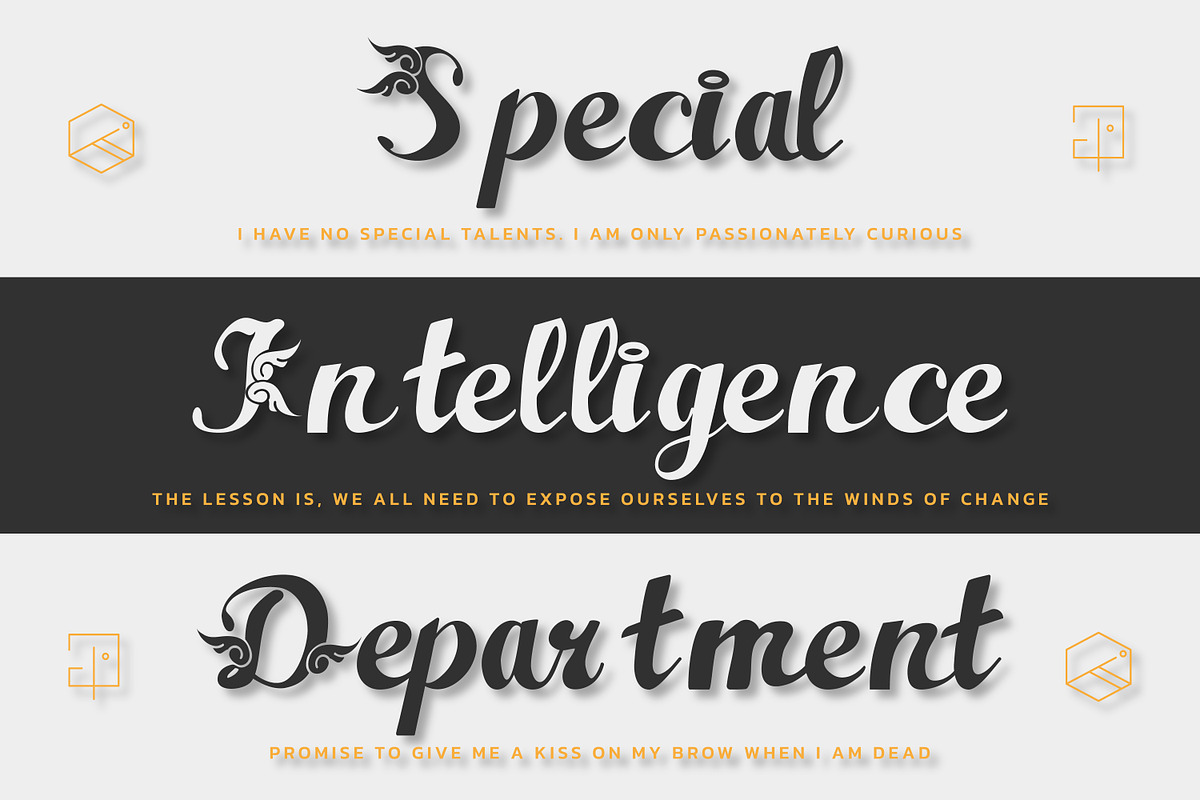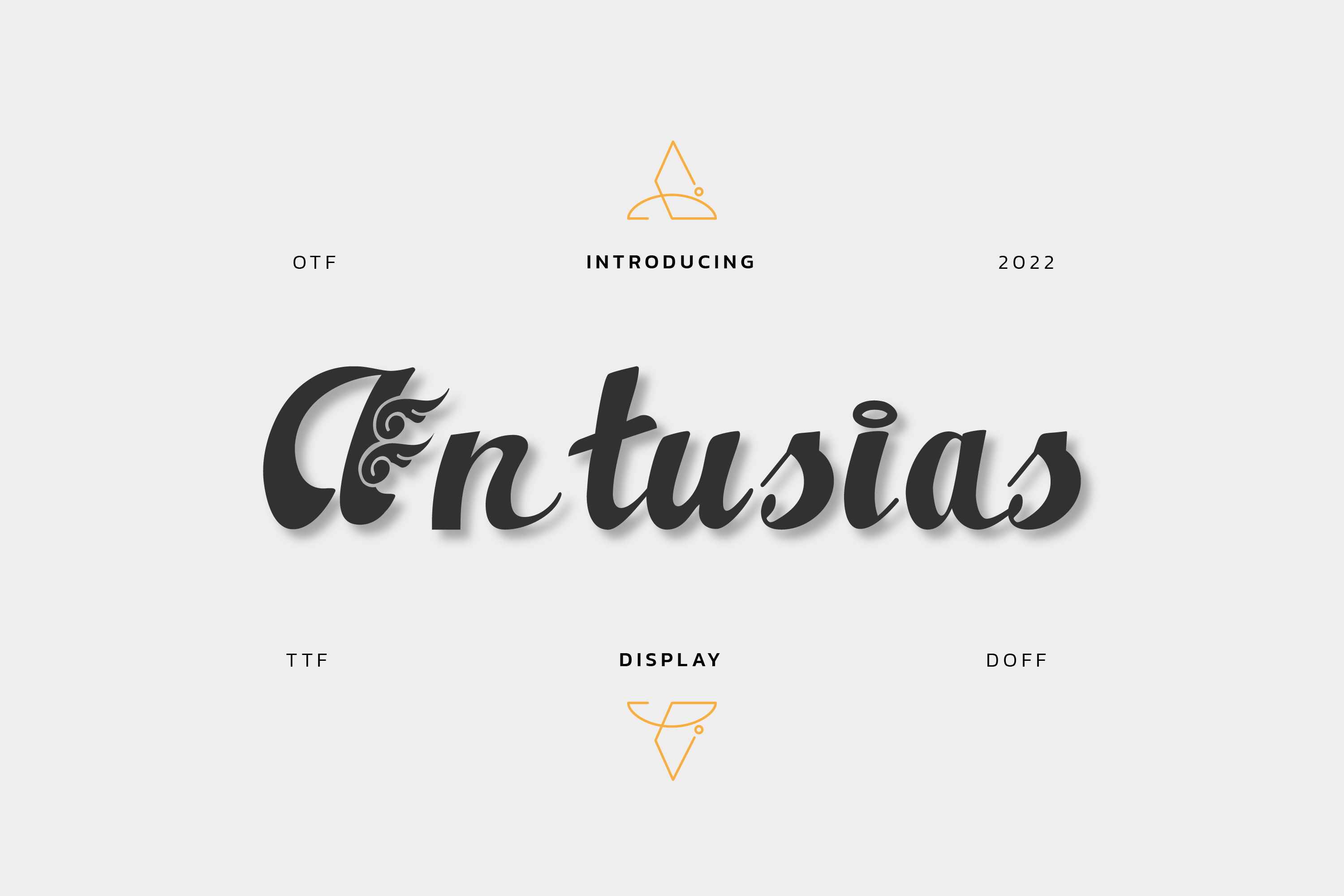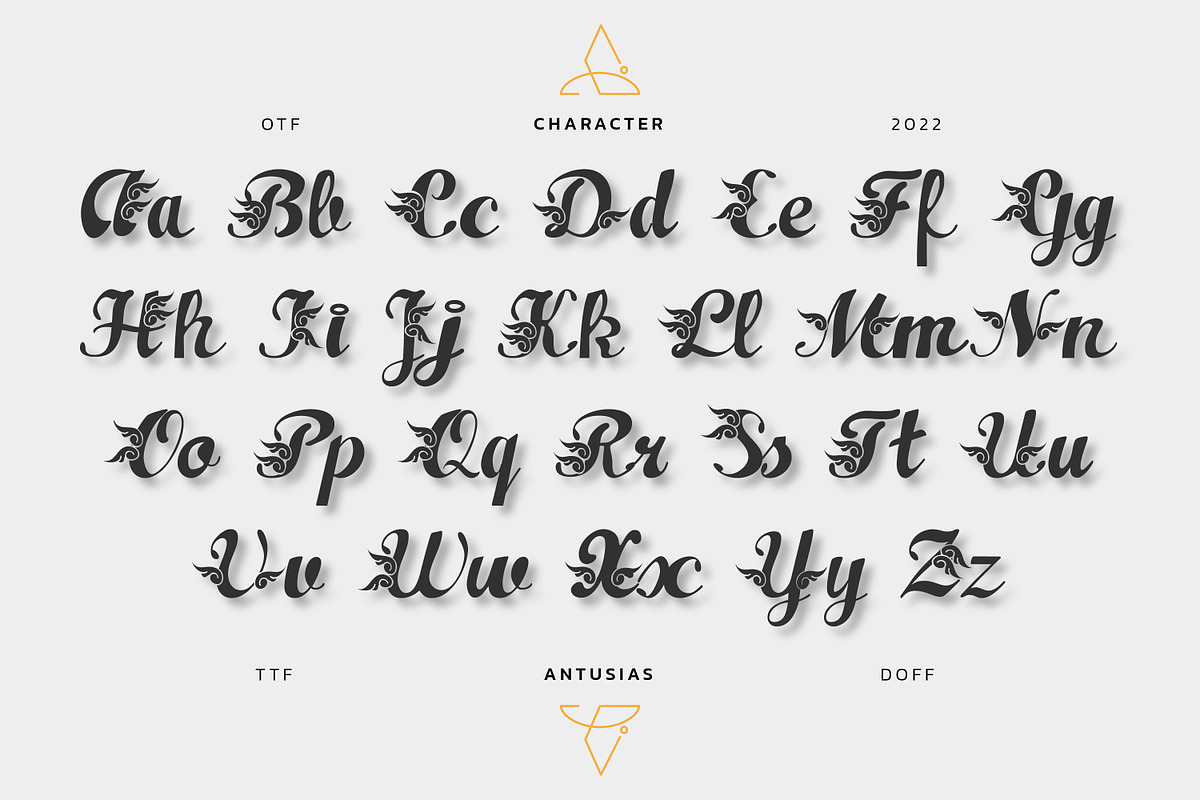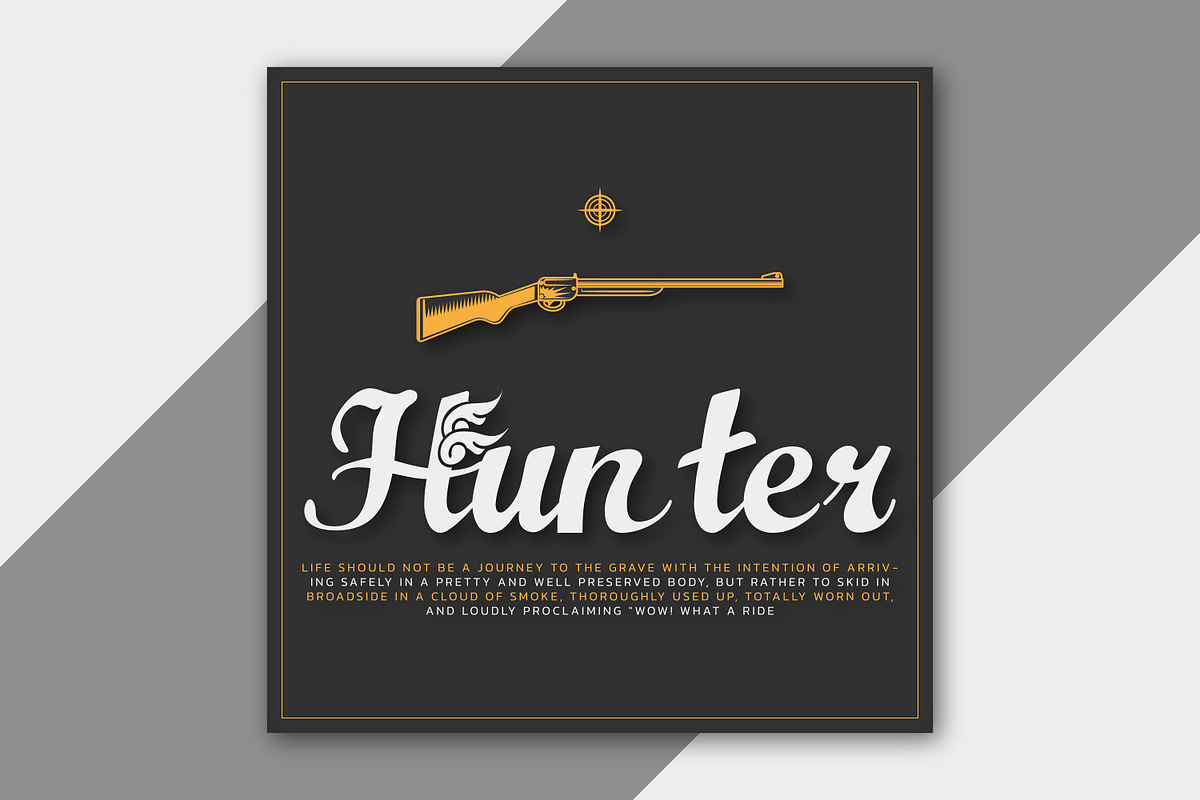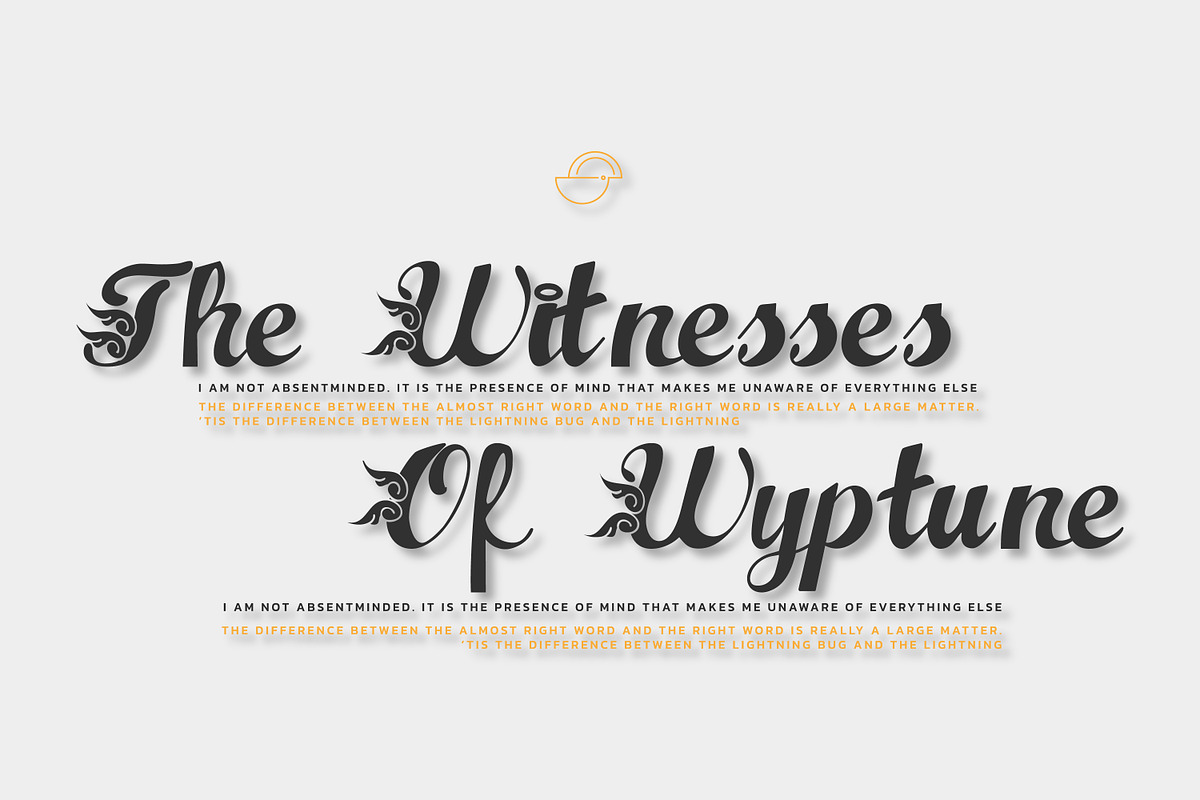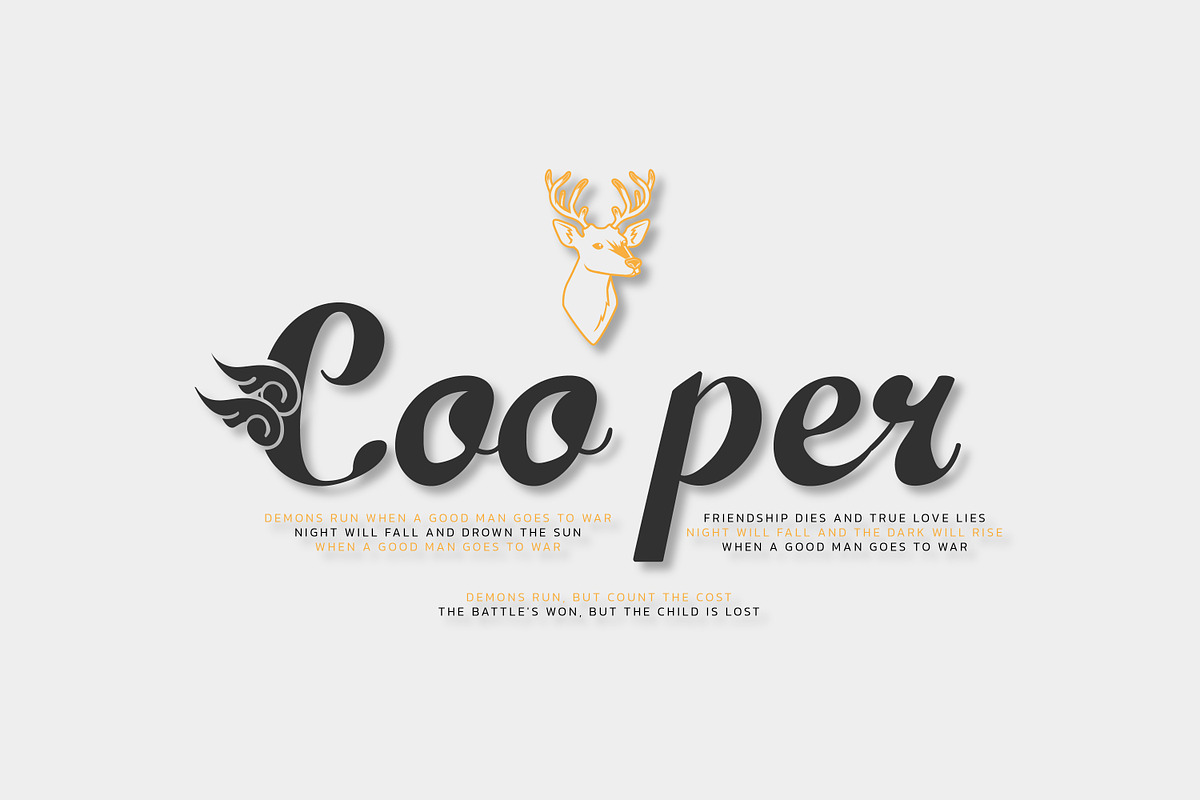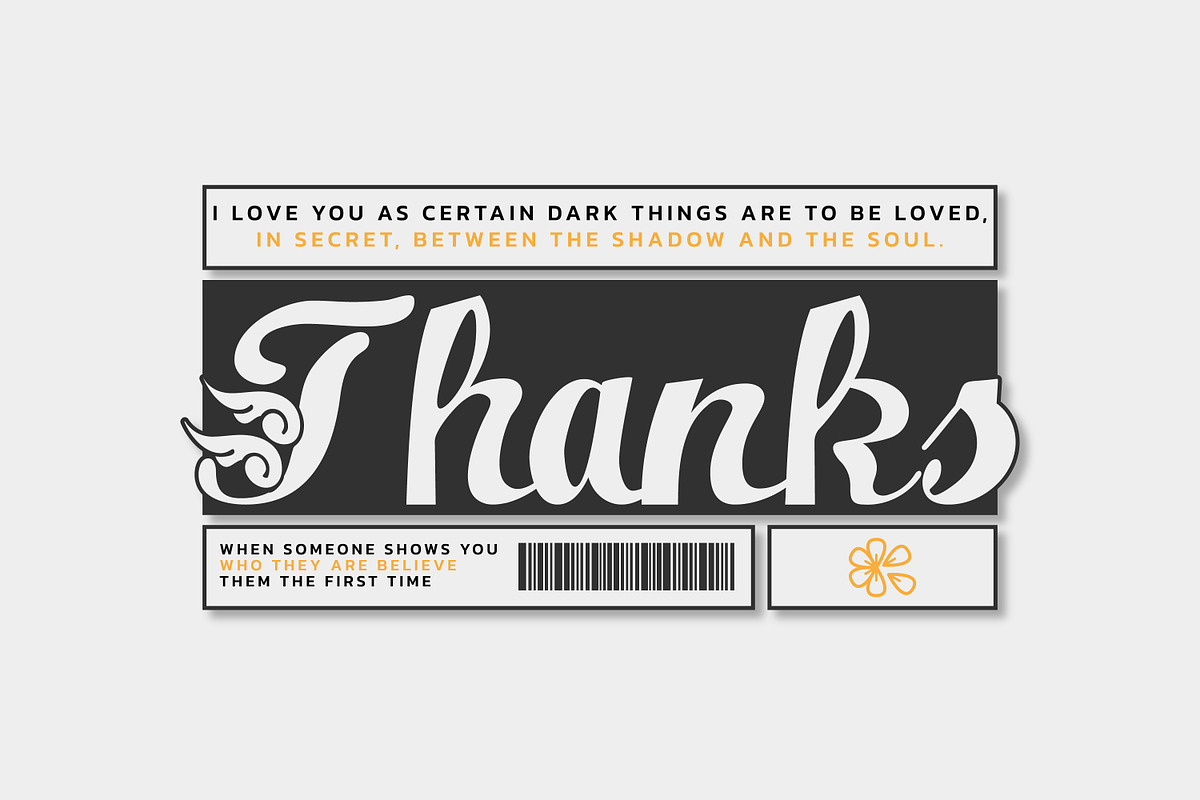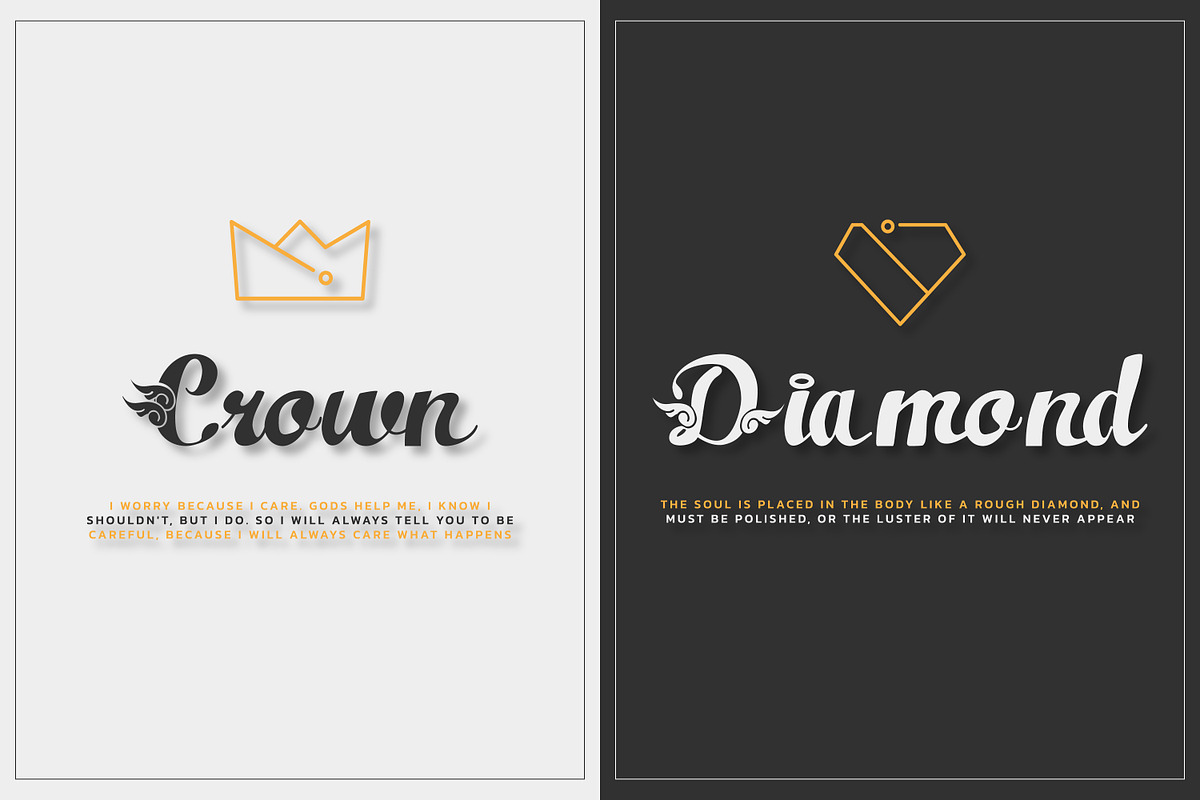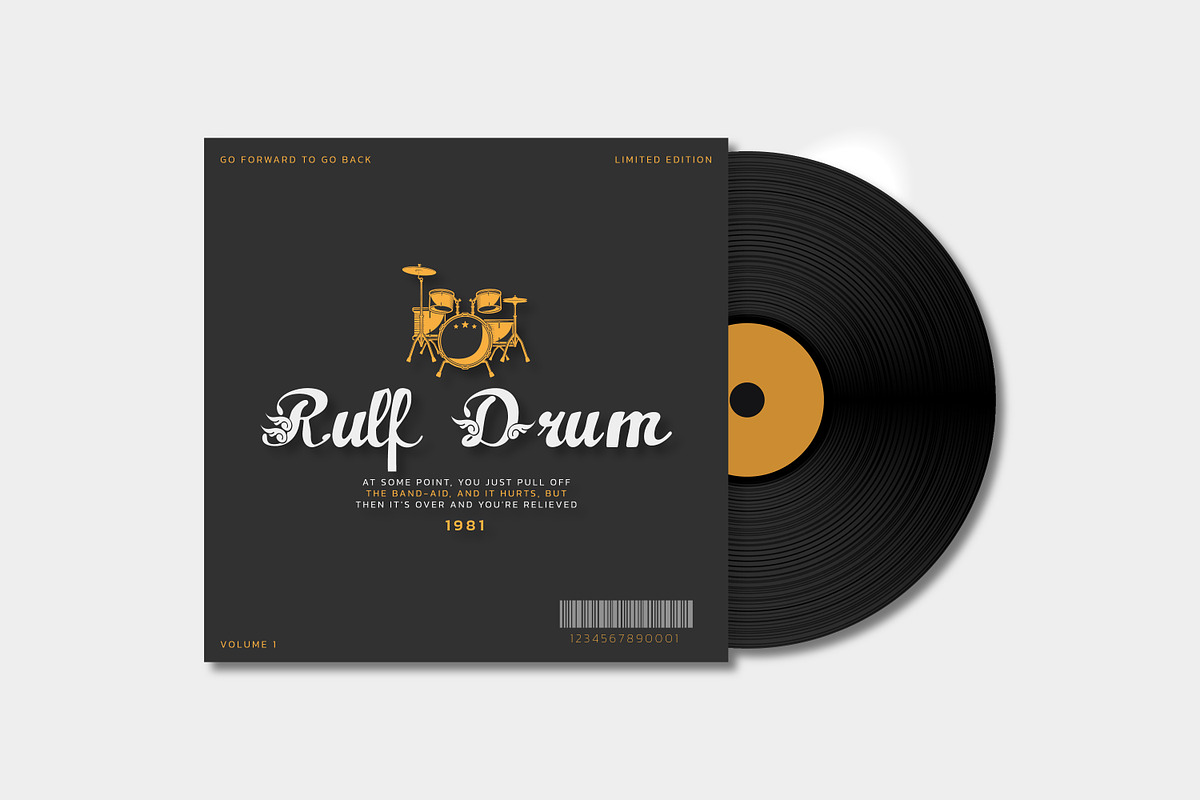
Antusias Script Font
Antusias is a stylish, cool, and bold script font. Masterfully designed to become a true favorite, this font has the potential to bring each of your creative ideas to the highest level!